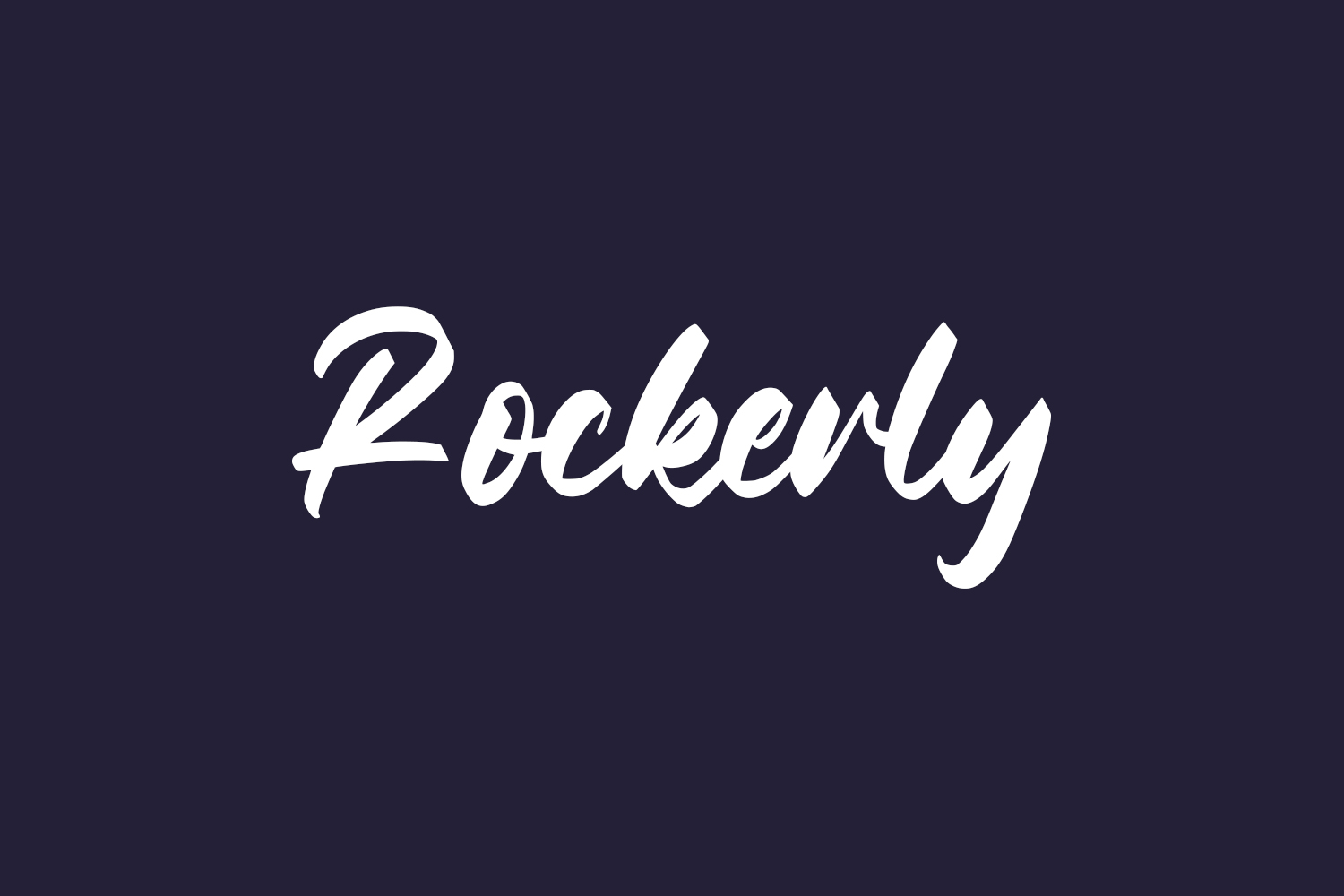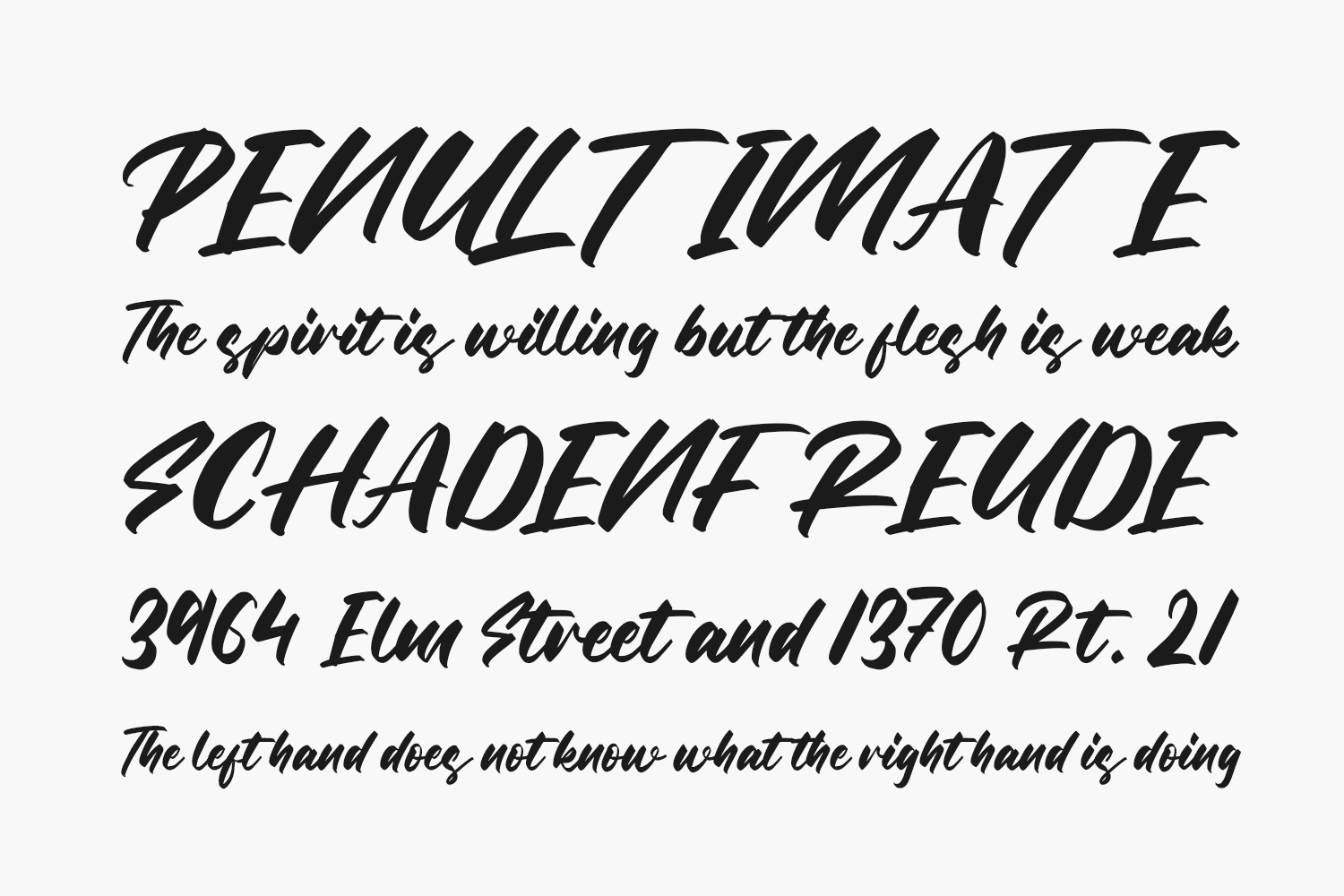
Rockerly Free Font is a daring script font with a modern look. It is the perfect font for making original and outstanding designs. Add it confidently to your projects, and you will love the results. Rockerly Free Font was designed by Octotype and is free for personal use only. Please purchase the full version for commercial use.